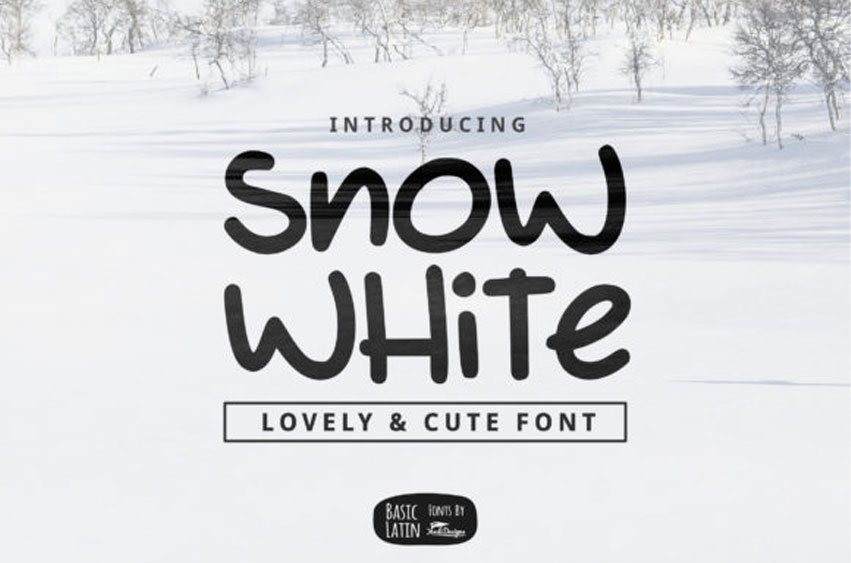
Snow White Font
Snow White Font is a simple, cute and incredibly adept handwritten font. It will add an incredibly joyful touch to your designs.
Add this beautiful font to each of your creative ideas and notice how it makes them stand out!